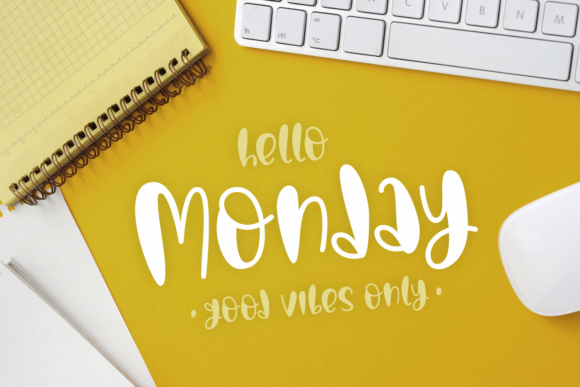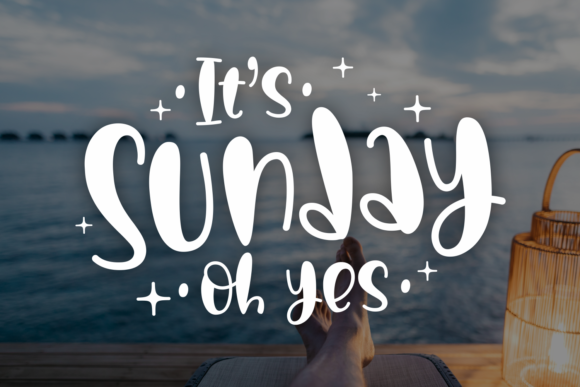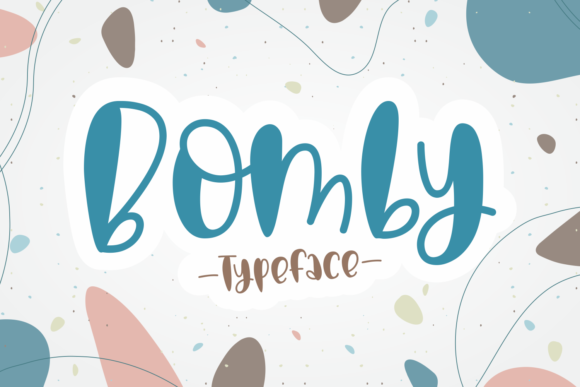
Bomby Font: The Ultimate Choice for Fun and Playful Designs
Bomby font is a delightful and whimsical display font that is sure to bring a smile to your face. With its playful and joyful vibe, this font is perfect for creating a wide range of designs that cater to children and families. In this article, we’ll dive into the world of Bomby font, exploring its features, benefits, and uses, making it a must-read for designers and crafters looking for a fun and quirky font.
What Makes Bomby Font So Special?
Bomby font is a unique and eye-catching display font that stands out from the crowd. Its playful and carefree design makes it an excellent choice for designs that require a touch of whimsy and fun. The font’s quirky and irregular shapes add a level of personality to your text, making it perfect for designs that need to capture the attention of your audience.
Features of Bomby Font
Bomby font comes with a range of features that make it an excellent choice for designers and crafters. Some of its notable features include:
- Playful and Whimsical Design: Bomby font boasts a playful and whimsical design that is sure to bring a smile to your face.
- Quirky and Irregular Shapes: The font’s quirky and irregular shapes add a level of personality to your text, making it perfect for designs that need to stand out.
- Excellent for Children-Related Designs: Bomby font is ideal for designs that cater to children and families, making it perfect for projects such as children’s books, nursery decor, and kids’ party invitations.
- Multilingual Support: Bomby font supports multiple languages, making it a great choice for designers who work with international clients.
Benefits of Using Bomby Font
Using Bomby font in your designs comes with a range of benefits, including:
- Instant Attention Grabber: The font’s playful and whimsical design makes it an instant attention grabber, perfect for designs that need to capture the attention of your audience.
- Adds Personality to Your Text: Bomby font adds a level of personality to your text, making it perfect for designs that need to convey a sense of fun and playfulness.
- Versatile and Flexible: Bomby font is versatile and flexible, making it suitable for a wide range of design projects, from children’s books to nursery decor.
Uses of Bomby Font
Bomby font is perfect for a wide range of design projects, including:
- Children’s Books and Magazines: Bomby font is ideal for children’s books and magazines, adding a touch of whimsy and fun to your content.
- Nursery Decor and Kids’ Party Invitations: The font’s playful and carefree design makes it perfect for nursery decor and kids’ party invitations.
- Branding and Packaging: Bomby font can be used for branding and packaging projects that require a touch of fun and playfulness.
Tips for Using Bomby Font
Here are some tips for using Bomby font in your designs:
- Use it for Headings and Titles: Bomby font is perfect for headings and titles, adding a touch of whimsy and fun to your text.
- Experiment with Colors and Textures: Experiment with different colors and textures to add depth and interest to your design.
- Pair it with Other Fonts: Pair Bomby font with other fonts to create a unique and eye-catching design.
Bomby font is a fun and quirky display font that is perfect for designers and crafters looking for a playful and whimsical font. With its unique features, benefits, and uses, Bomby font is an excellent choice for a wide range of design projects, from children’s books to nursery decor. Whether you’re a seasoned designer or a crafty DIY enthusiast, Bomby font is sure to bring a smile to your face and add a touch of fun to your designs.